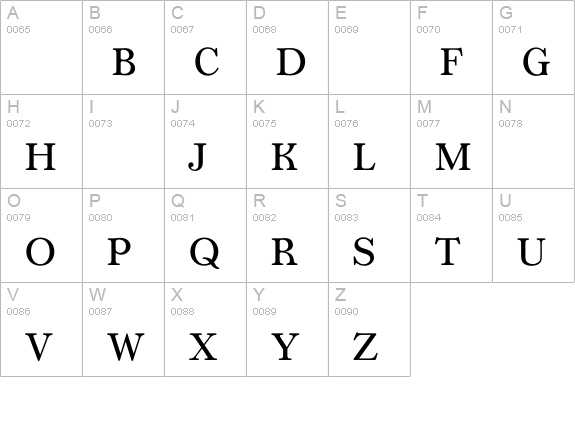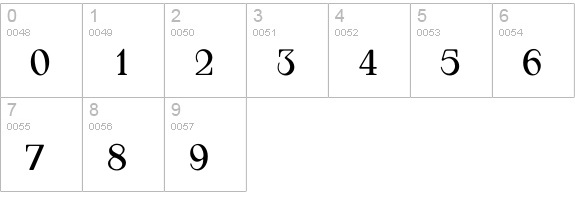
AppleyardLight Font Details
AppleyardLight is a modern and elegant font that exudes sophistication and style. With its sleek lines and minimalist design, this font is perfect for adding a touch of class to any project. Whether you're designing a logo, creating a poster, or working on a website, AppleyardLight is sure to impress. The best part? AppleyardLight is completely free to use! You can download this stunning font at FontsMarket.com without spending a dime. Don't miss out on the opportunity to elevate your designs with this beautiful typeface. Download AppleyardLight today and take your projects to the next level.